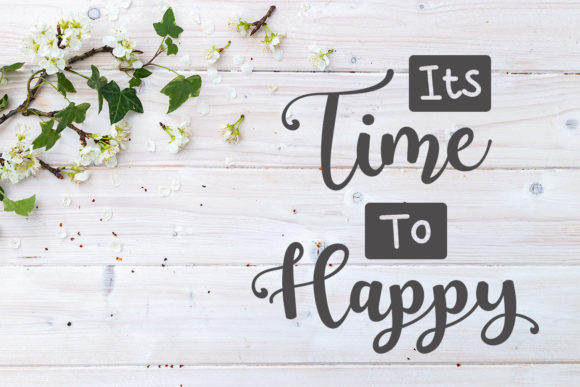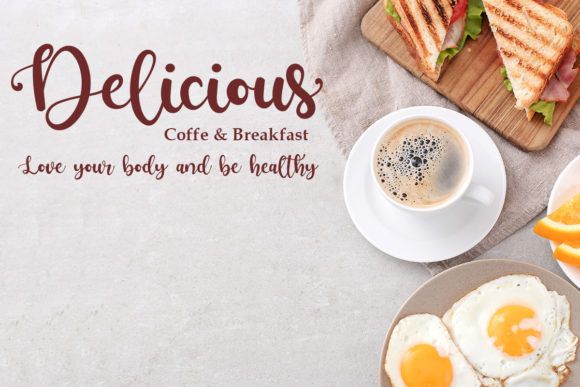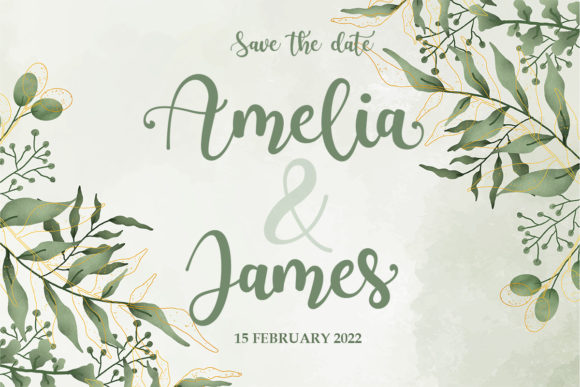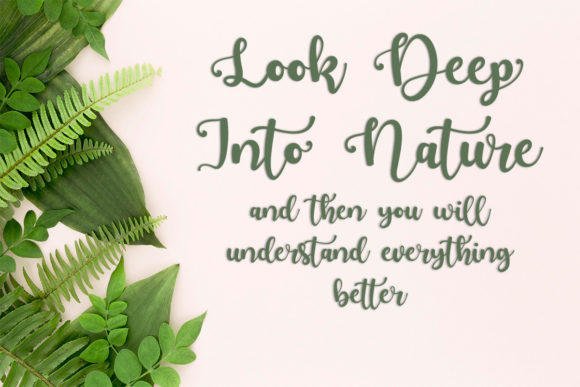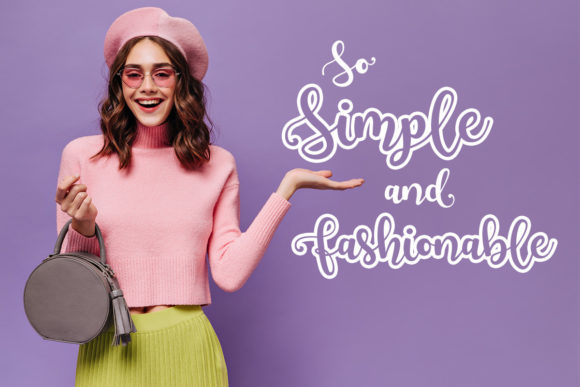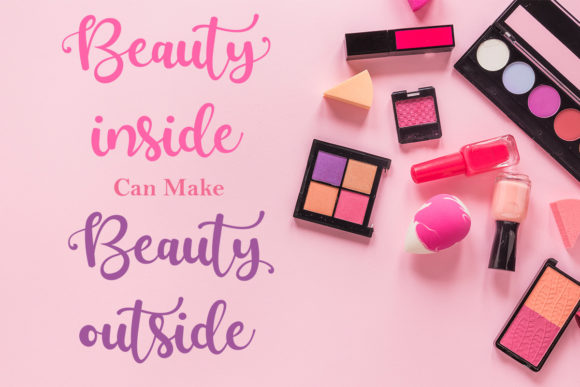
Introduction to Beauty Sakura Font
Beauty Sakura is an elegant and modern handwritten font with a beautiful and luxurious feel.
It is great for Instagram content designs or calligraphy scripts for DIY projects This font is PUA encoded which means you can access all of the glyphs and swashes with ease.